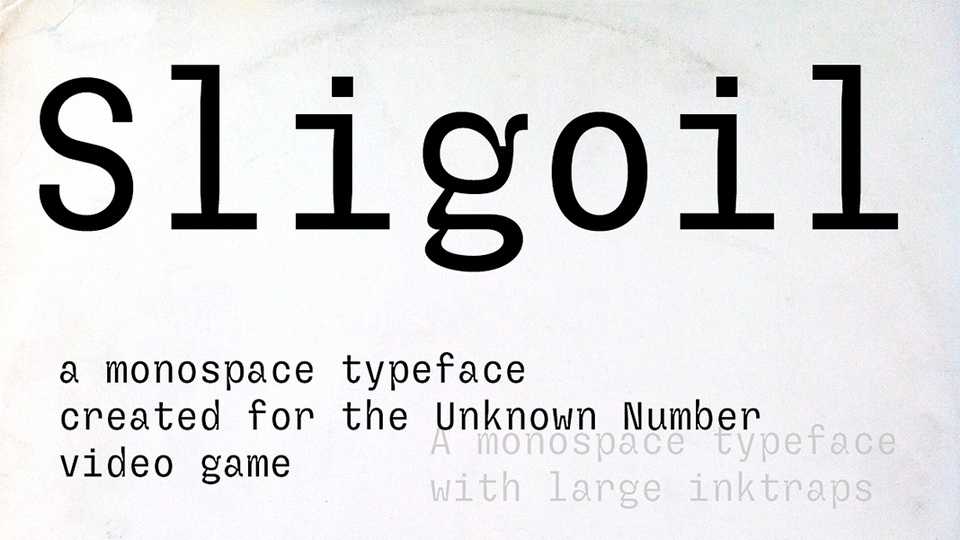
Download Sligoil font, a monospace typeface. It has been designed for the interface of the Unknown Number game, published by Godolphin Games. Sligoil is also the name of an evil fictional company within the game.
Designer: Ariel Martín Pérez